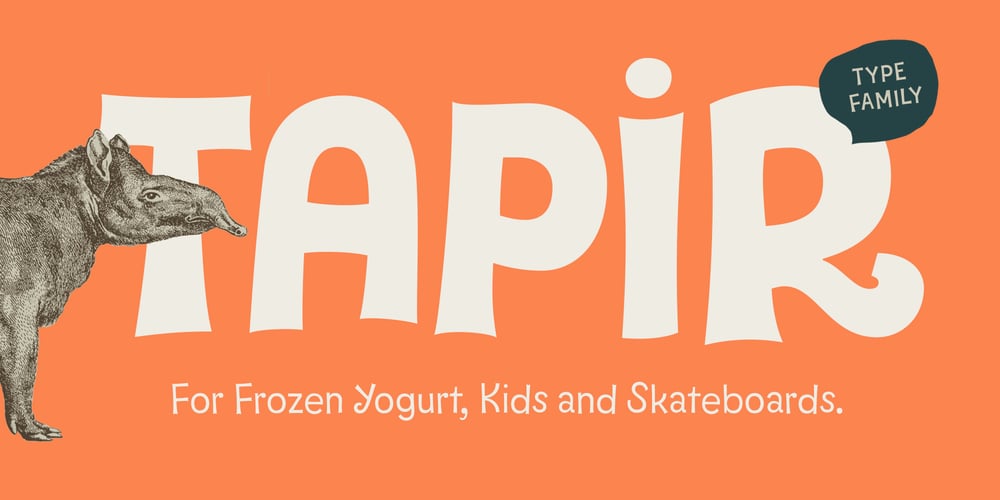
Tapir Font Family was designed by Hannes von Döhren and published by HVD Fonts. Tapir contains 5 styles and family package options. Searching for the ExceptionalDesigning Tapir was driven by the search for a display typeface which is doing something different than the rounded and bouncy fun faces – the letterforms should stand out with a slight touch of weirdness, creating attention and recognizabilty. A big character set, optimized spacing & kerning and lots of features make Tapir a good choice for professional usage between games, toys and skateboards.